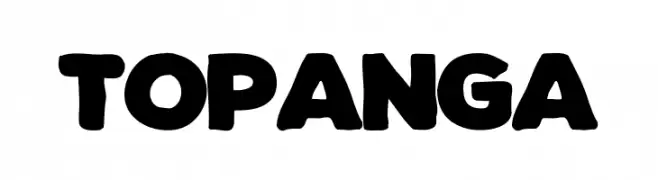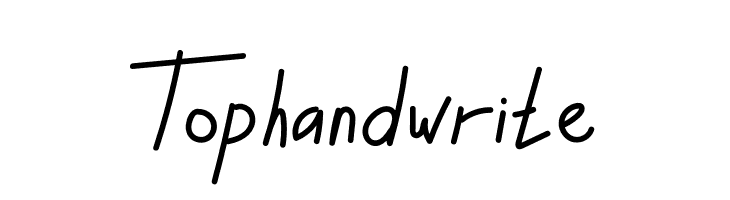
( imagex - www.imagex-fonts.com )
A bold, 3D geometric font with shadow effects for impactful designs.
( Fonts by Koczman Balint - magiquefonts.gportal.hu )
A bold, stencil-style font with a distressed, vintage appearance.
( Danny Amor - formerly at penelope.cli.di.unipi.it/~amor/ )
A bold, pixelated font with a retro digital aesthetic.
A modern, geometric font with clean lines and minimalist design.
A bold, edgy font with a hand-drawn, artistic style.
A playful, casual handwritten font with dynamic strokes.